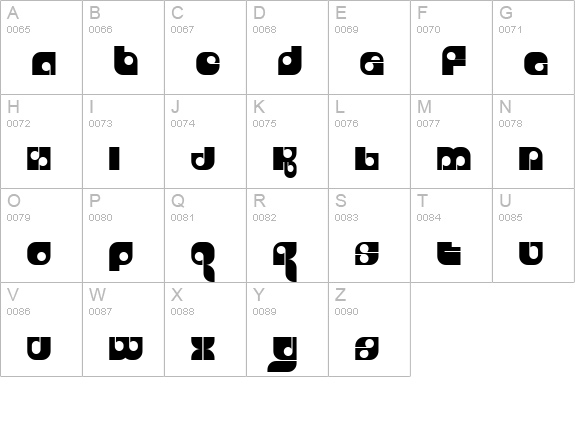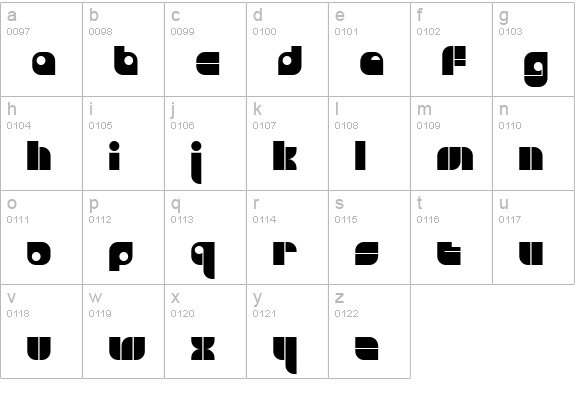
Introducing Freestyle font, a captivating and versatile typeface that exudes creativity and modernity. The Freestyle font is designed with sleek lines and stylish curves, making it the perfect choice for a wide range of design projects. Whether you're working on branding, advertising, or social media graphics, this font will add a touch of flair and sophistication to your work. What sets Freestyle font apart is its unique blend of elegance and edginess, making it stand out from the crowd. With its bold yet graceful appearance, this font effortlessly captures attention and leaves a lasting impression on viewers. The best part? Freestyle font is completely free to download at FontsMarket.com. That's right, you can access this stunning typeface at no cost and use it in your projects without any restrictions. So why wait? Elevate your designs with the modern charm of Freestyle font today!